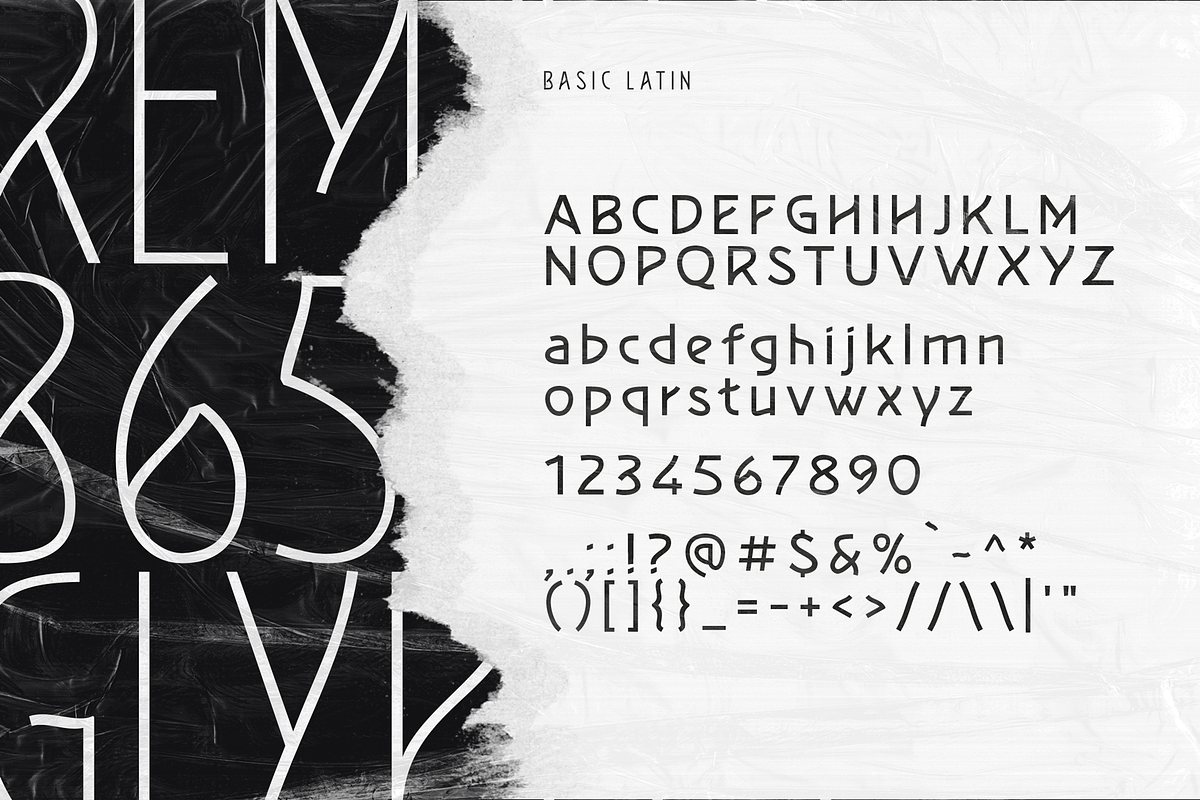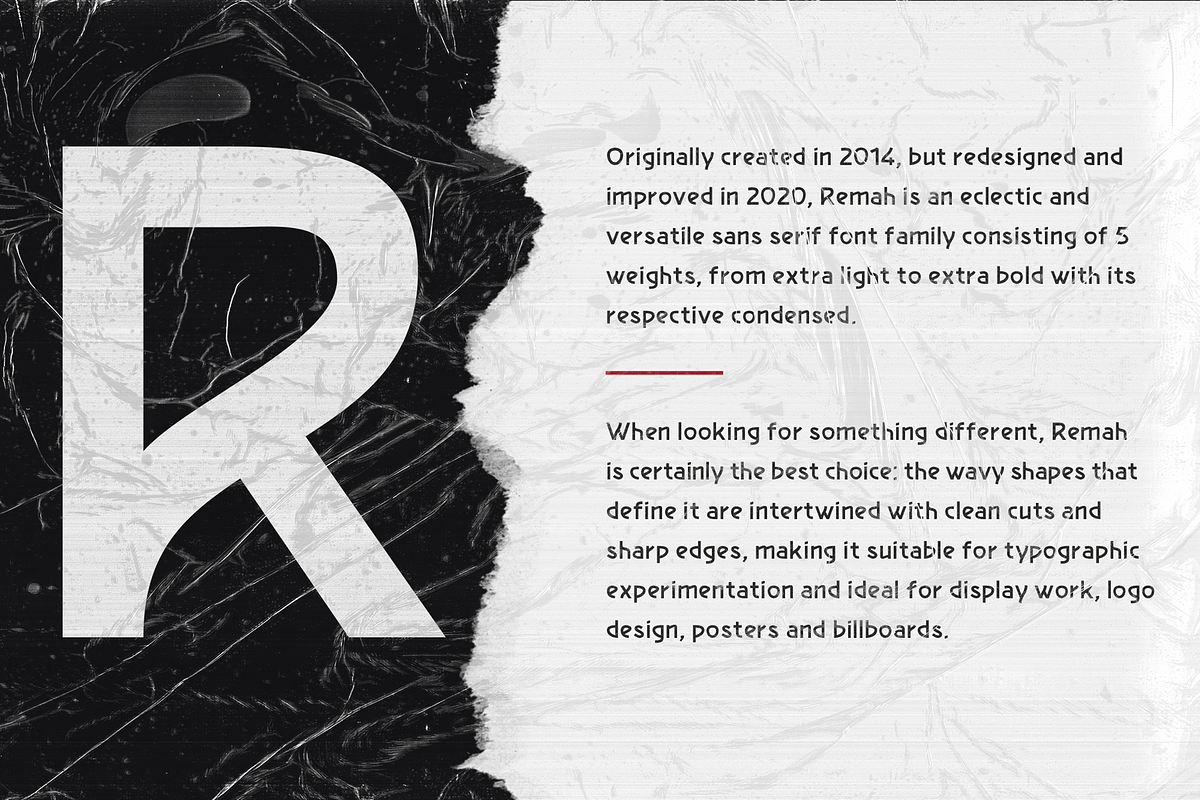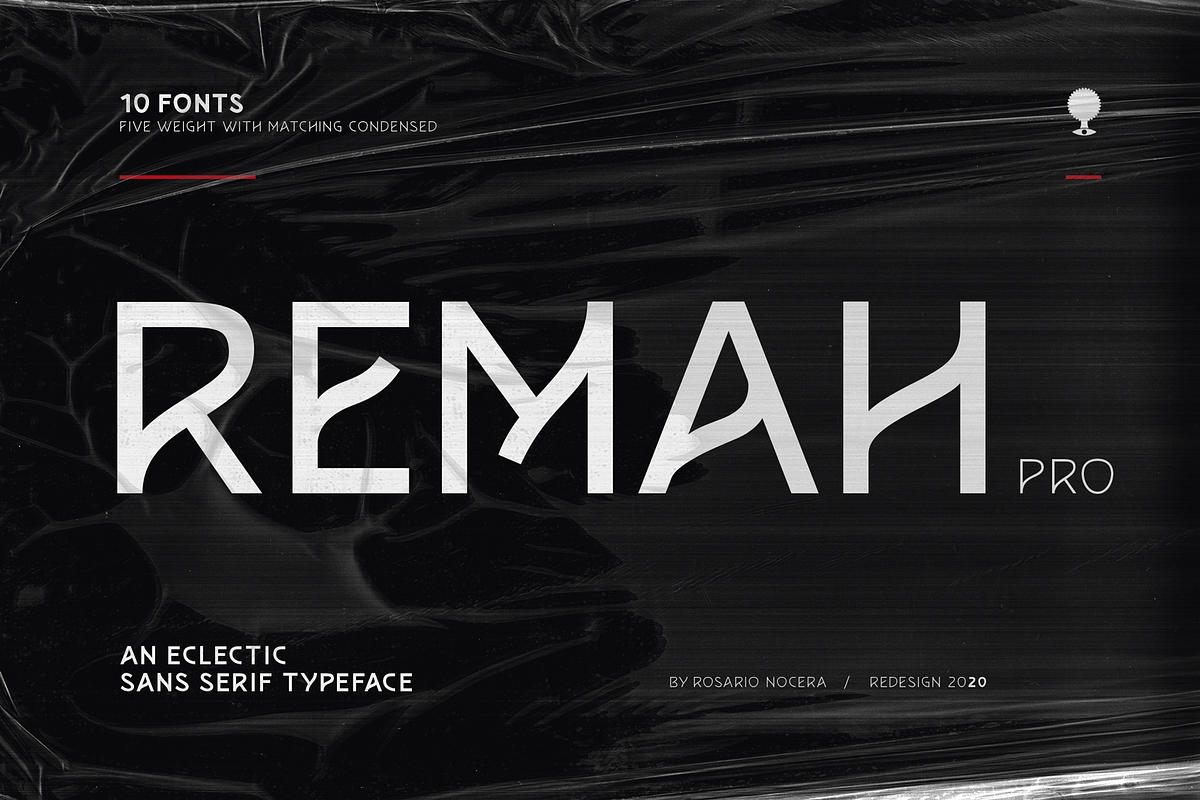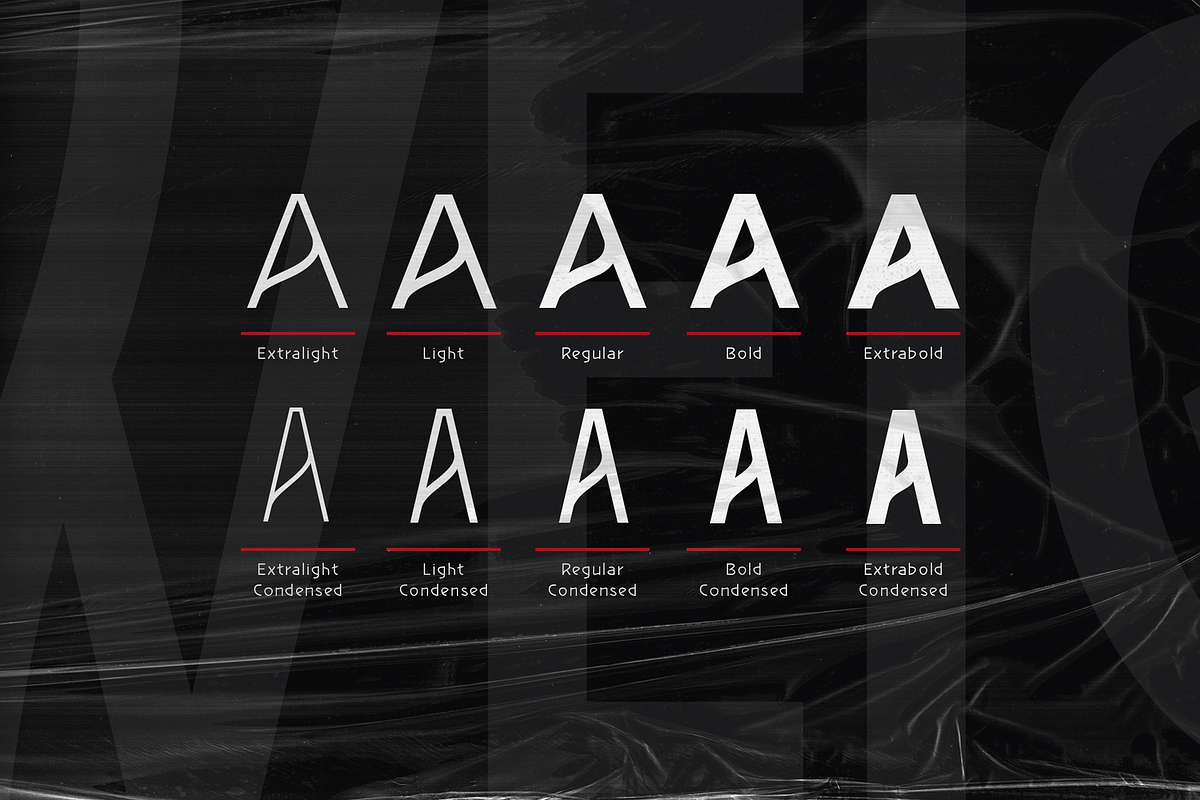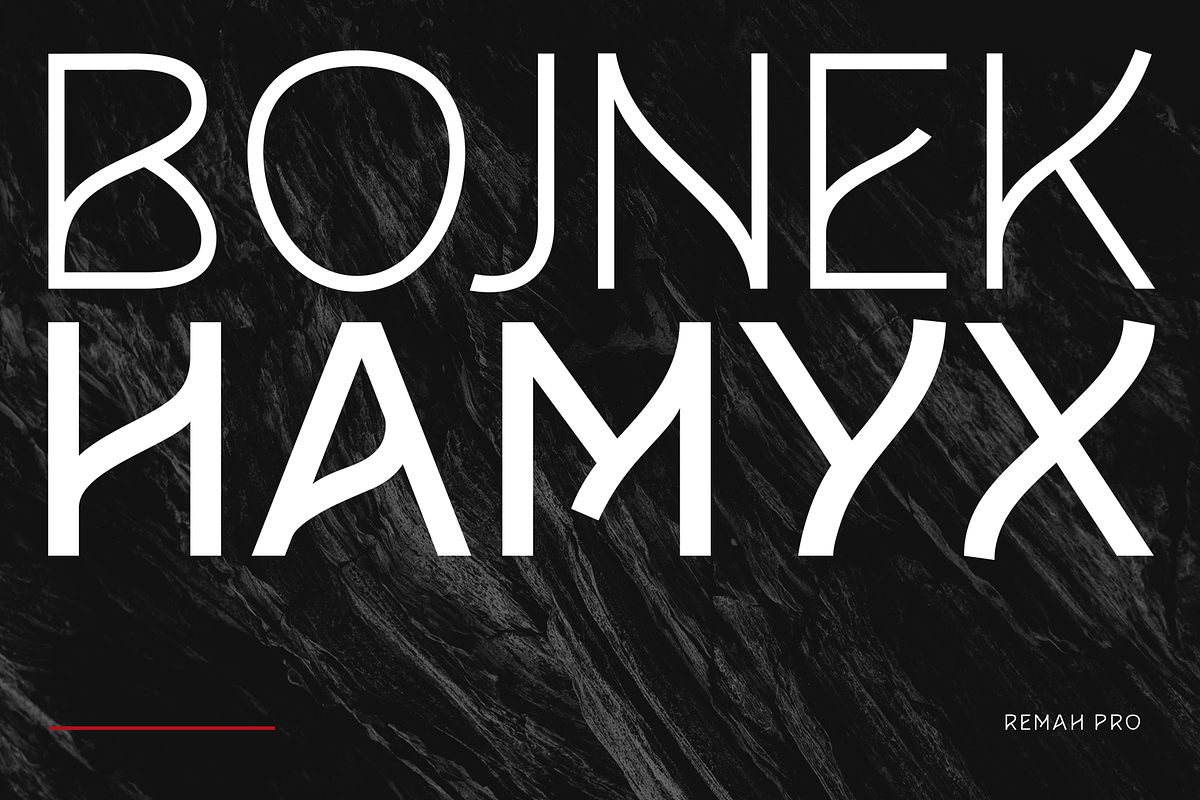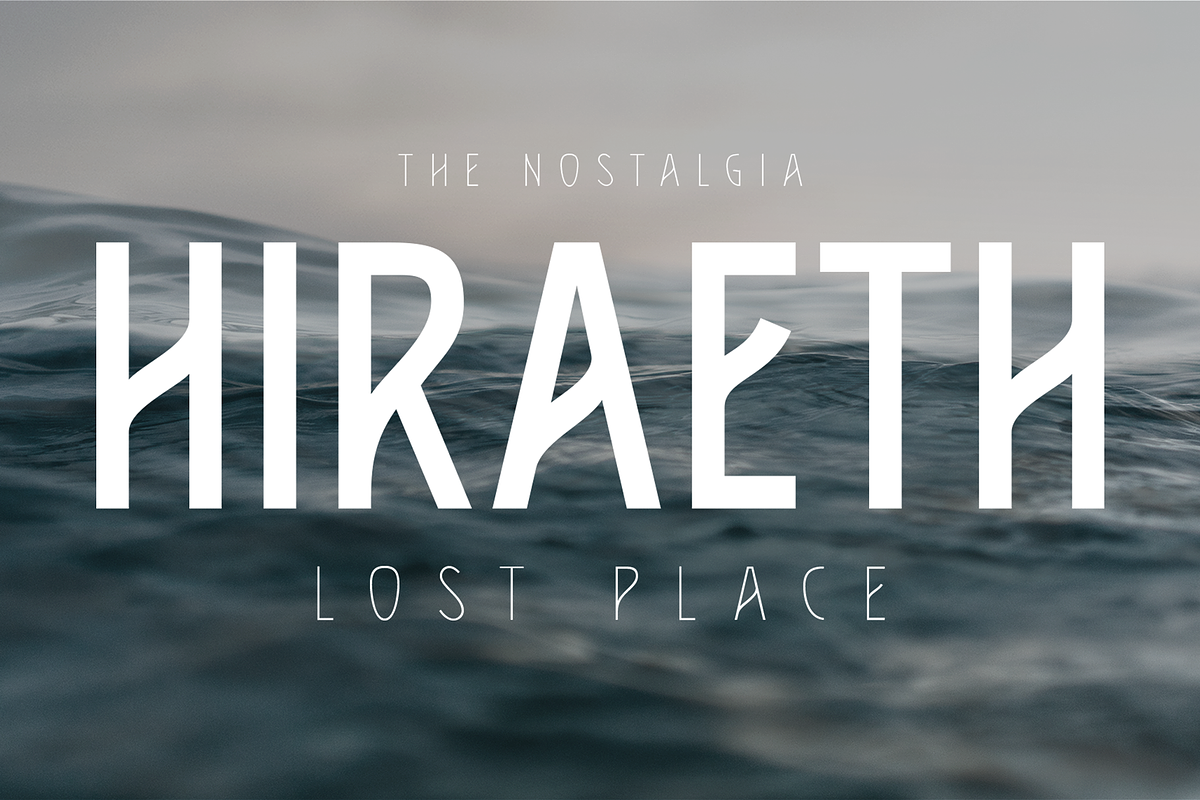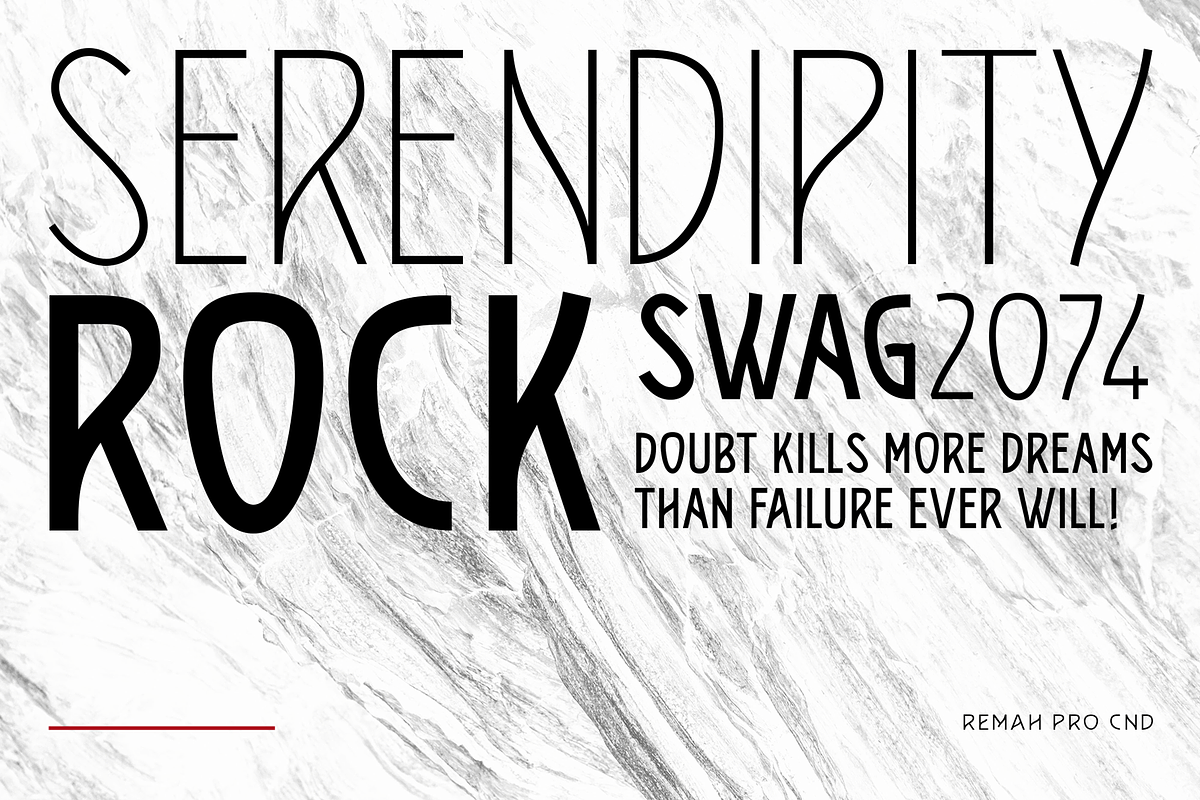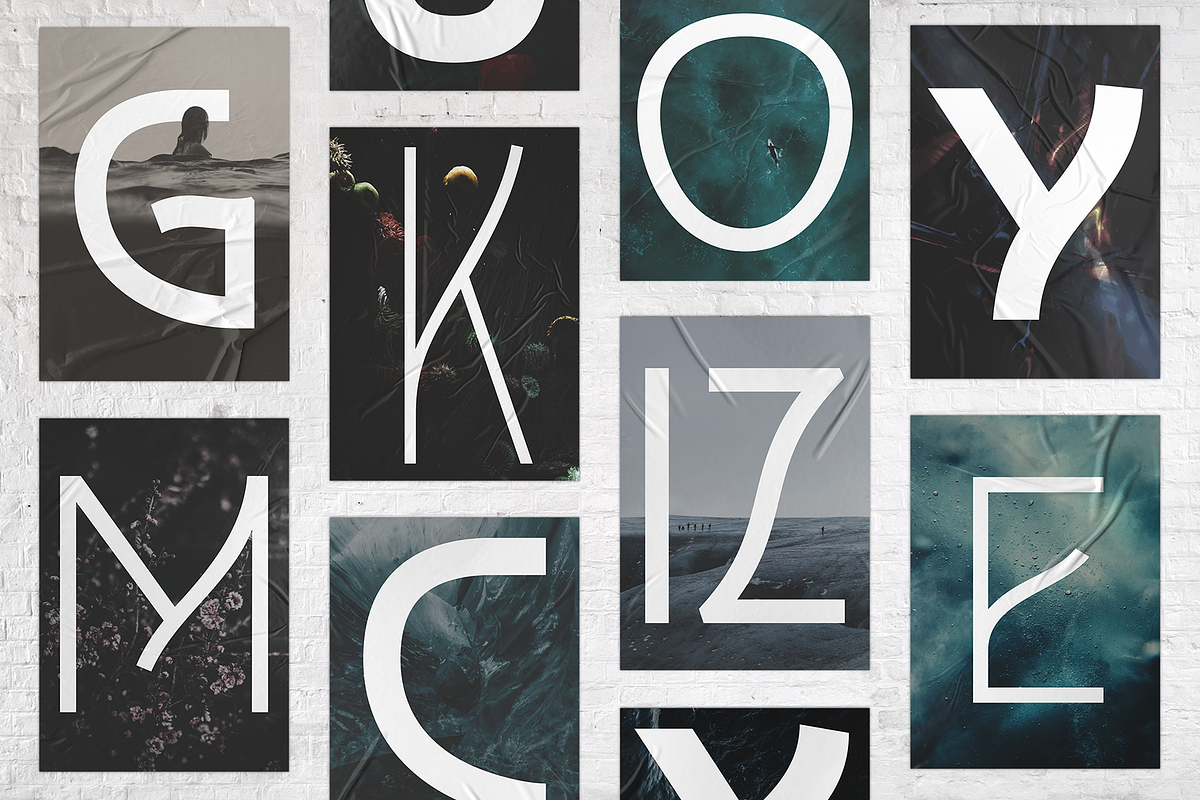
Remah Pro / san serif typeface
Originally created in 2014, but redesigned and improved in 2020, Remah is an eclectic and versatile sans serif font family consisting of 5 weights, from extra light to extra bold with its respective condensed. When looking for something different, Remah is certainly the best choice: the wavy shapes that define it are intertwined with clean cuts and sharp edges, making it suitable for typographic experimentation and ideal for display work, logo design, posters and billboards.